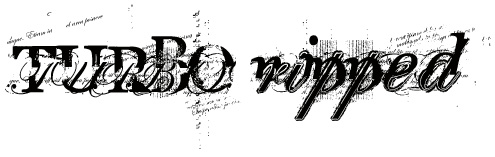
Gyom Seguin has some fabulous fonts on daFont and I thought I’d share my favourites with you since I think that they would be great for overlays, digital layouts and altered photos.
These are too cool and I am sure they are fab on photos!!